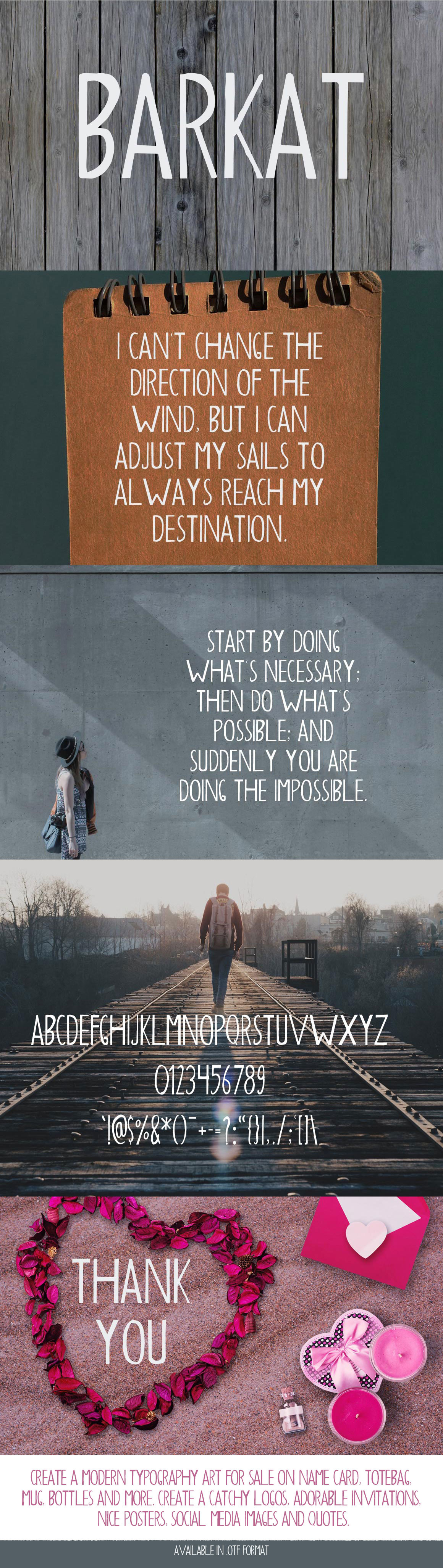
Barkat Calligraphy Font
Barkat Calligraphy Font All Caps is a calligraphy brush font inspired by vintage handwriting. Create a modern typography art for sale on name card, tote-bag, mug, bottles and more. Create a catchy logos, adorable invitations, nice posters, social media images and quotes and applicable for any graphic design.